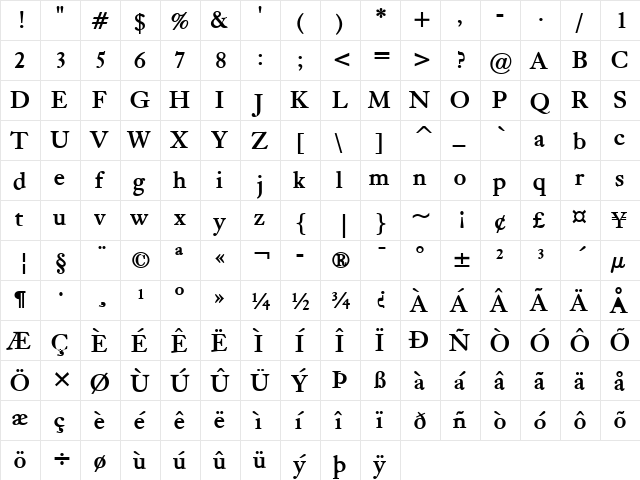
Bliss Bold
Design Context for Bliss Typeface
Bliss is a composed and adaptable typeface that performs quietly and consistently across a wide range of design contexts. Its bold stroke weight gives it real presence on the page.
Pro Tip: Pair Bliss with a font of contrasting weight or personality to build a more expressive typographic hierarchy.